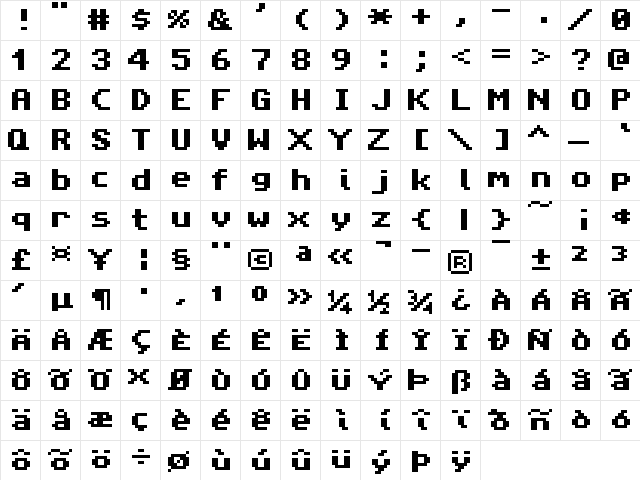
Complete Amiga Forever Regular glyph index. Displaying only characters natively supported by Amiga Forever Regular font.
Amiga Forever is a composed and adaptable typeface that performs quietly and consistently across a wide range of design contexts.